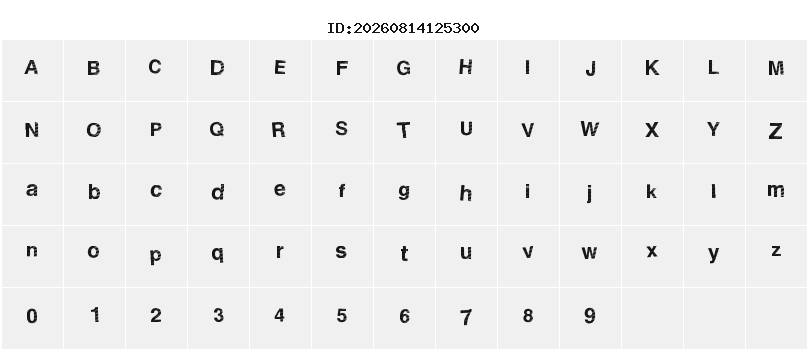
StripeDisco Preview
• Font Name: StripeDisco
• Font ID: StripeDisco:Version 1.00
• Full Font Name: StripeDisco
• Version: Version 1.00 November 25, 2013, initial release
• PostScript Name: StripeDisco
• Character Count: 72
• Designer: Xerographer Fonts Max Infeld
• Manufacturer: Xerographer Fonts
• Description: Made at Xerographer Studios in Chico,CA
About StripeDisco.ttf
StripeDisco.ttf is a modern, elegant sans-serif font designed for ultimate readability and visual harmony. Perfect for branding, headlines, web design, and print materials.